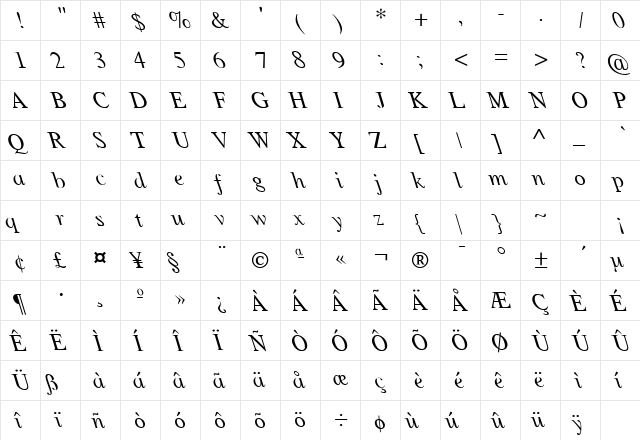
Dabbington Reverse Italic Italic
Design Context for Dabbington Reverse Italic Typeface
Dabbington Reverse Italic offers clean, dependable letterforms without strong stylistic allegiance, making it a practical choice for designers who need flexibility. The slanted form adds forward momentum and visual energy.
Pro Tip: Use Dabbington Reverse Italic for emphasis, pull quotes, and subheadings where its slanted energy can add rhythm to the layout.